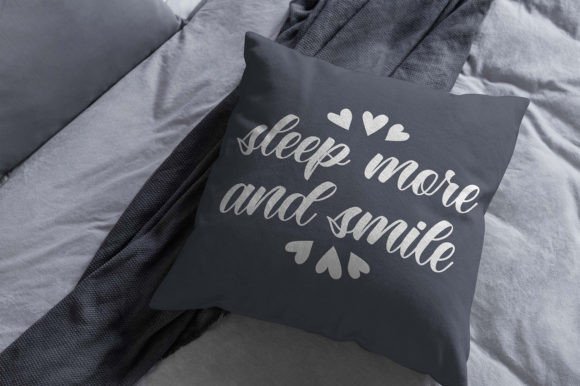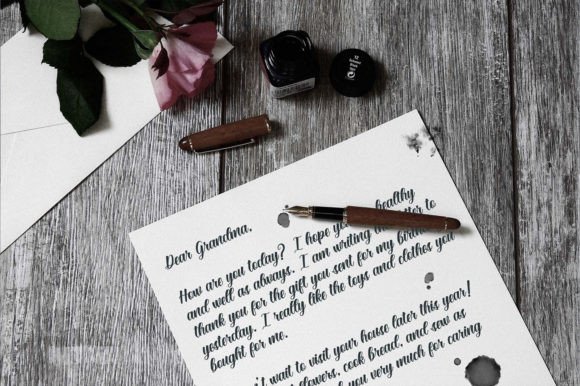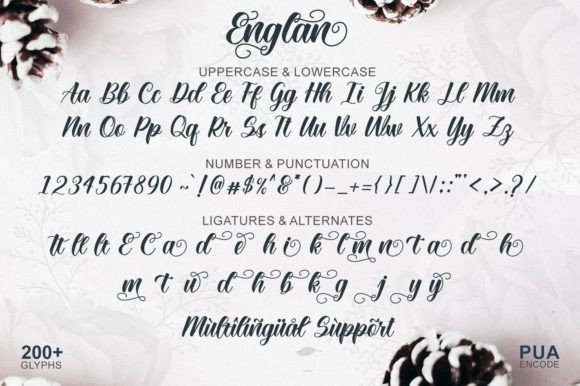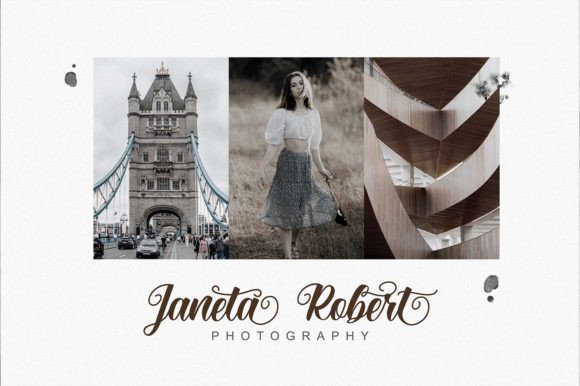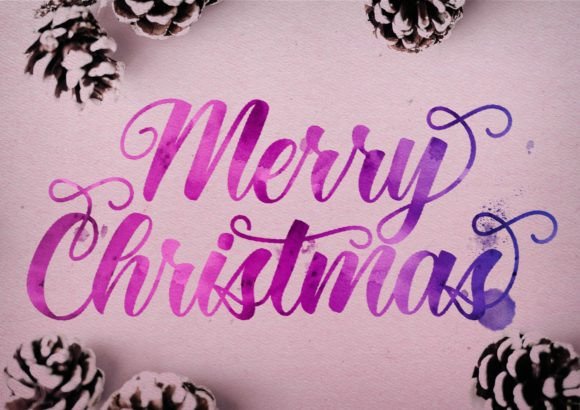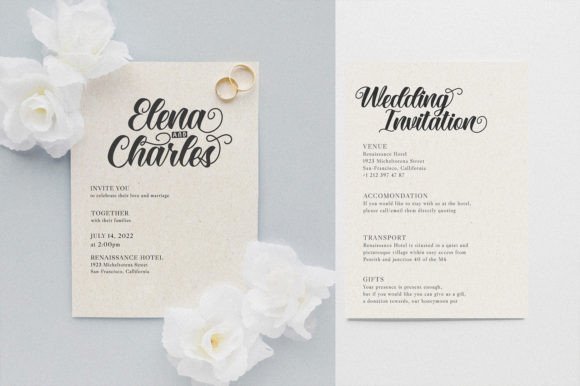
Introducing Englan Font: The Perfect Modern Romantic Handwritten Script Font
Are you a designer or crafter looking for a beautiful and elegant font to elevate your creative projects? Look no further than Englan Font, a stunning modern and romantic handwritten script font that is sure to impress. With its beautiful curves and flowing lines, Englan Font is the perfect choice for a wide range of design projects, from wedding invitations and greeting cards to quotes, books, and social media graphics.
What Makes Englan Font So Special?
Englan Font is a unique and eye-catching font that features beautiful curves in every letter. Its modern and romantic design makes it perfect for couples looking for a elegant and sophisticated font for their wedding invitations, or for designers and crafters seeking a stylish and versatile font for their creative projects.
One of the standout features of Englan Font is its PUA (Private Use Area) coding, which allows you to access all of the glyphs and sweeps with ease. This means that you can easily customize your text and add your own personal touches, making your designs truly one-of-a-kind.
The Perfect Font for Wedding Invitations and More
Englan Font is perfectly suited for wedding invitations, thank you cards, and other special occasion stationery. Its elegant and sophisticated design makes it ideal for formal events, while its romantic and whimsical feel makes it perfect for couples looking for a font that captures the magic and excitement of their special day.
But Englan Font is not just limited to wedding invitations. Its versatility and beauty make it perfect for a wide range of design projects, including:
- Quotes and typography graphics
- Books and ebooks
- T-shirts and apparel
- YouTube and Instagram graphics
Why Designers and Crafters Love Englan Font
Designers and crafters love Englan Font for its unique combination of style, versatility, and ease of use. With Englan Font, you can create stunning designs that are sure to impress your clients or audience.
Here are just a few reasons why designers and crafters love Englan Font:
- Easy to use: Englan Font is PUA coded, making it easy to access all of the glyphs and sweeps.
- Highly customizable: With Englan Font, you can customize your text and add your own personal touches.
- Perfect for a wide range of projects: Englan Font is versatile and can be used for everything from wedding invitations to social media graphics.
- Beautiful and elegant: Englan Font features beautiful curves and flowing lines, making it perfect for designs that require a touch of elegance and sophistication.
Get Creative with Englan Font
If you’re looking for a beautiful and elegant font to elevate your designs, look no further than Englan Font. With its modern and romantic design, PUA coding, and versatility, Englan Font is the perfect choice for designers and crafters who want to create stunning and unique designs.
In conclusion, Englan Font is a stunning modern and romantic handwritten script font that is perfect for designers and crafters who want to create beautiful and elegant designs. With its PUA coding, versatility, and beautiful curves, Englan Font is the perfect choice for a wide range of design projects.
Whether you’re a seasoned designer or a crafter just starting out, Englan Font is a must-have font that is sure to elevate your designs and help you create stunning and unique projects.